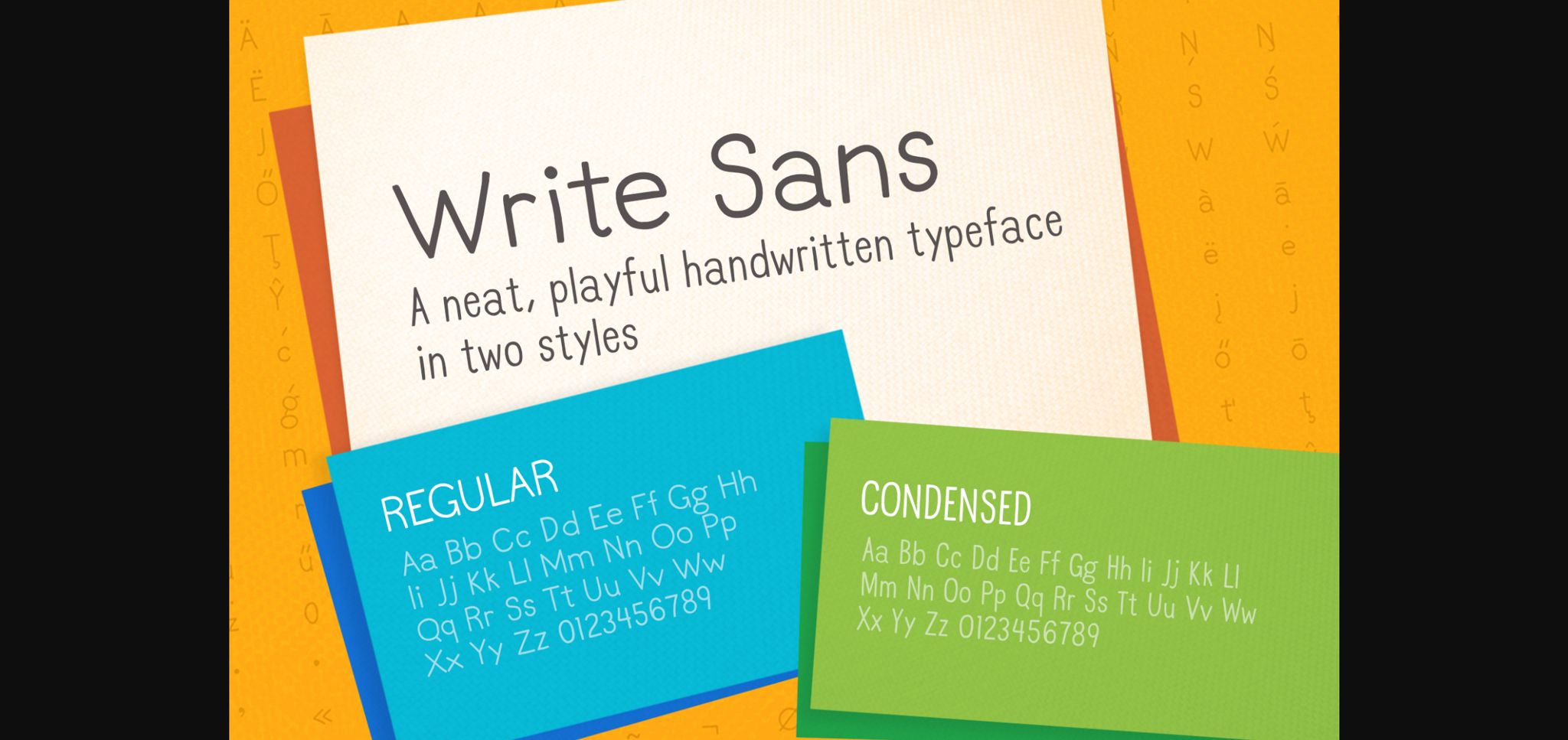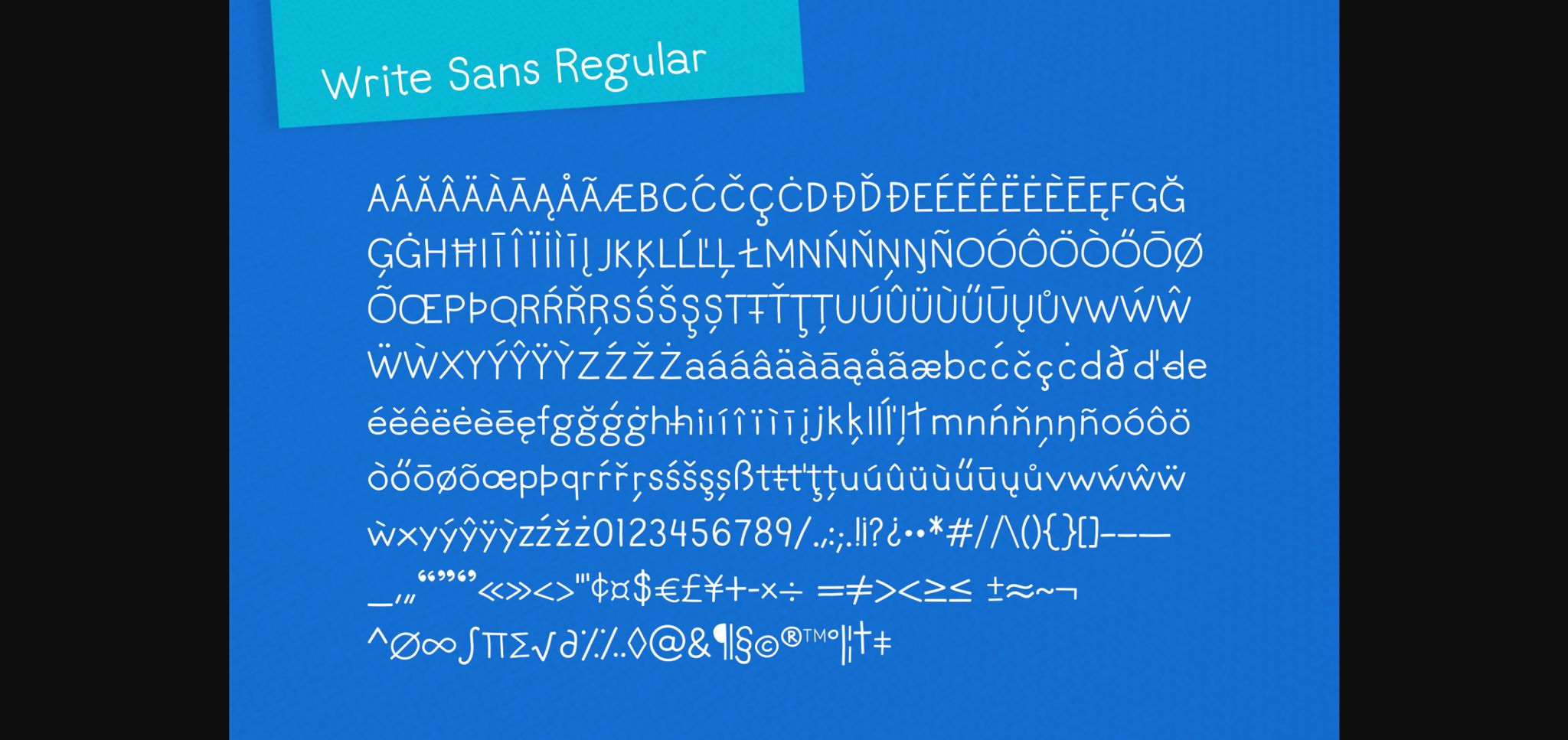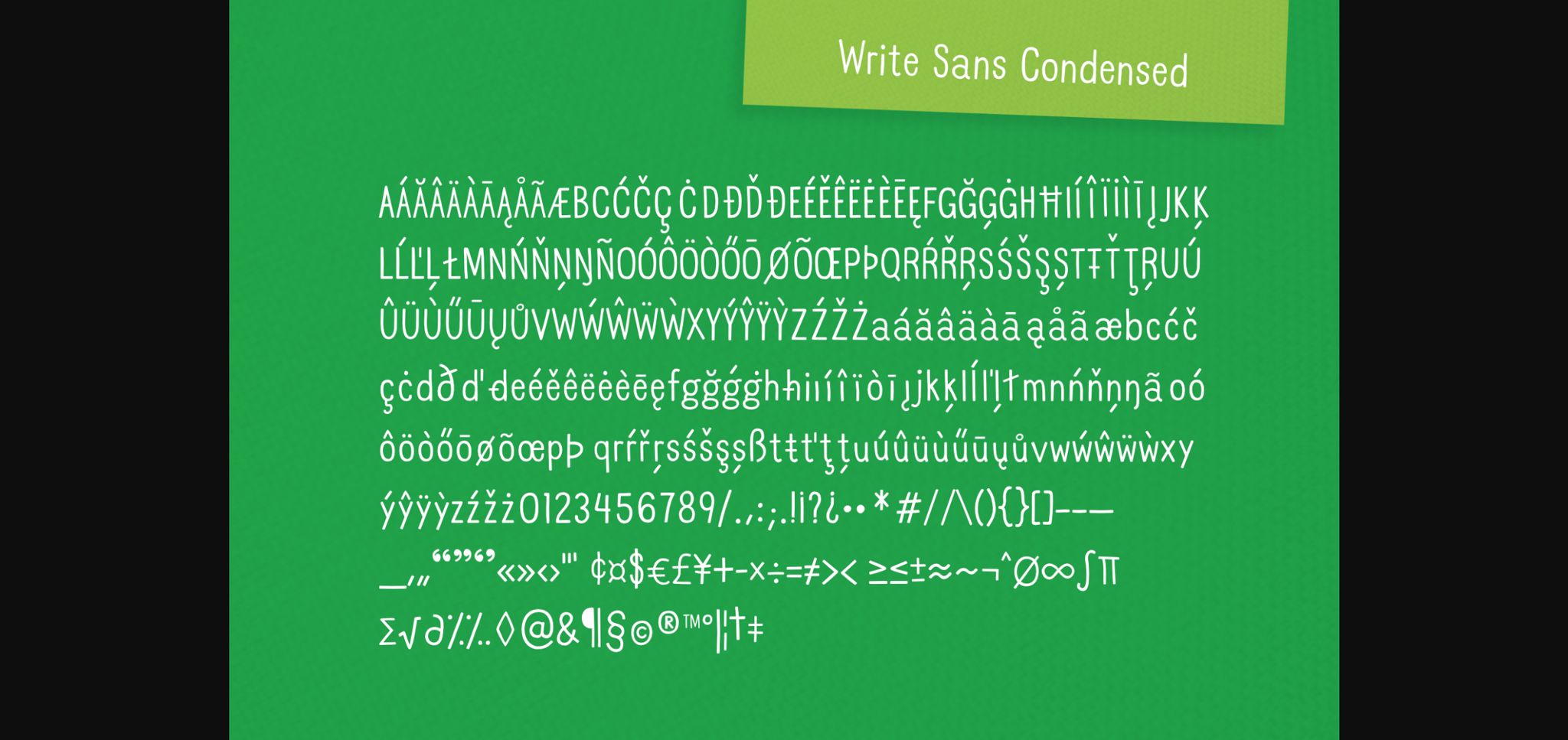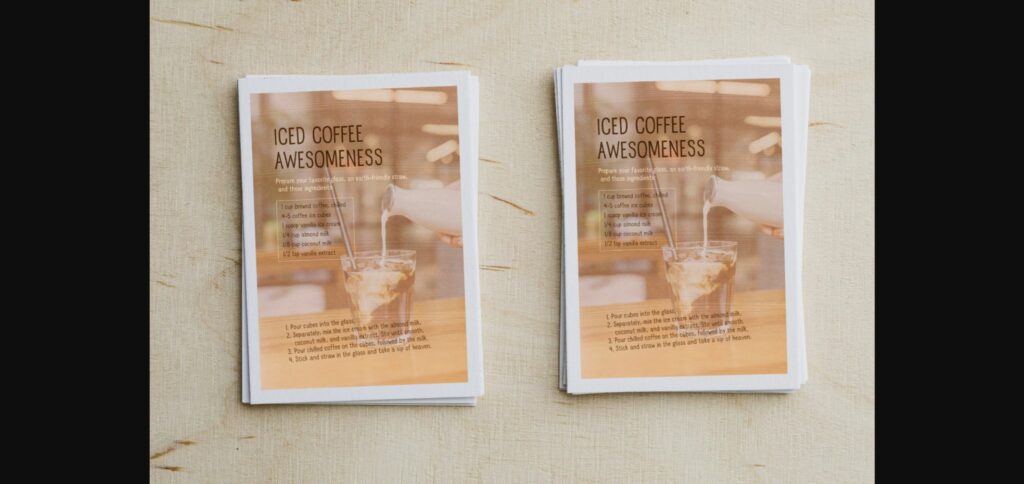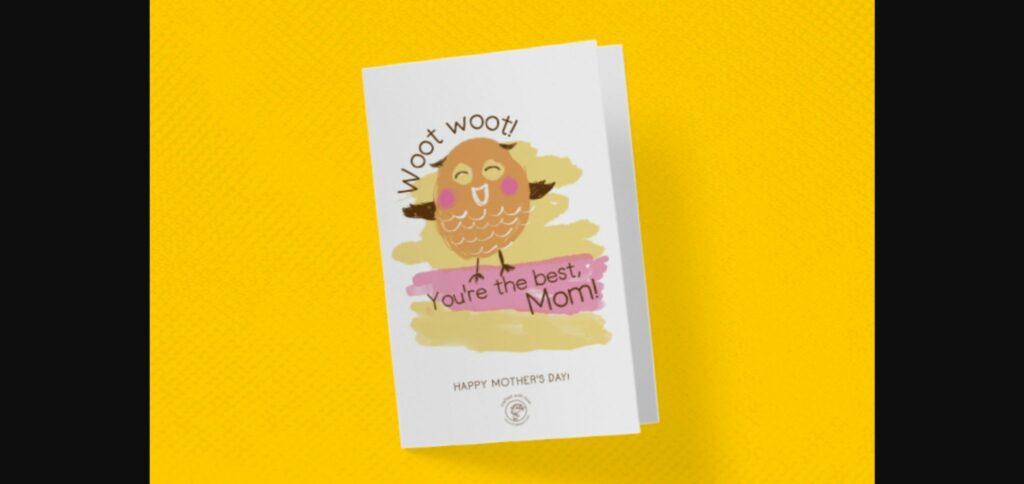
Write Sans Font
About Write Sans Font
Write Sans is a neat, playful, sans serif typeface in two styles, regular and condensed, with a wide, multi-lingual character set. Use it to add a personal touch and positive vibe to your project.